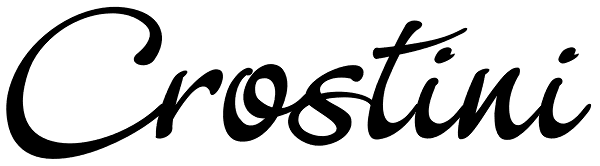
Crostini
Crostini was designed as a fun-filled, vigorous brush script, originally intended for restaurant logos and menus. As it evolved, I realized that it was more versatile than I'd thought - great for feminine, girly media as well as for more “in your...